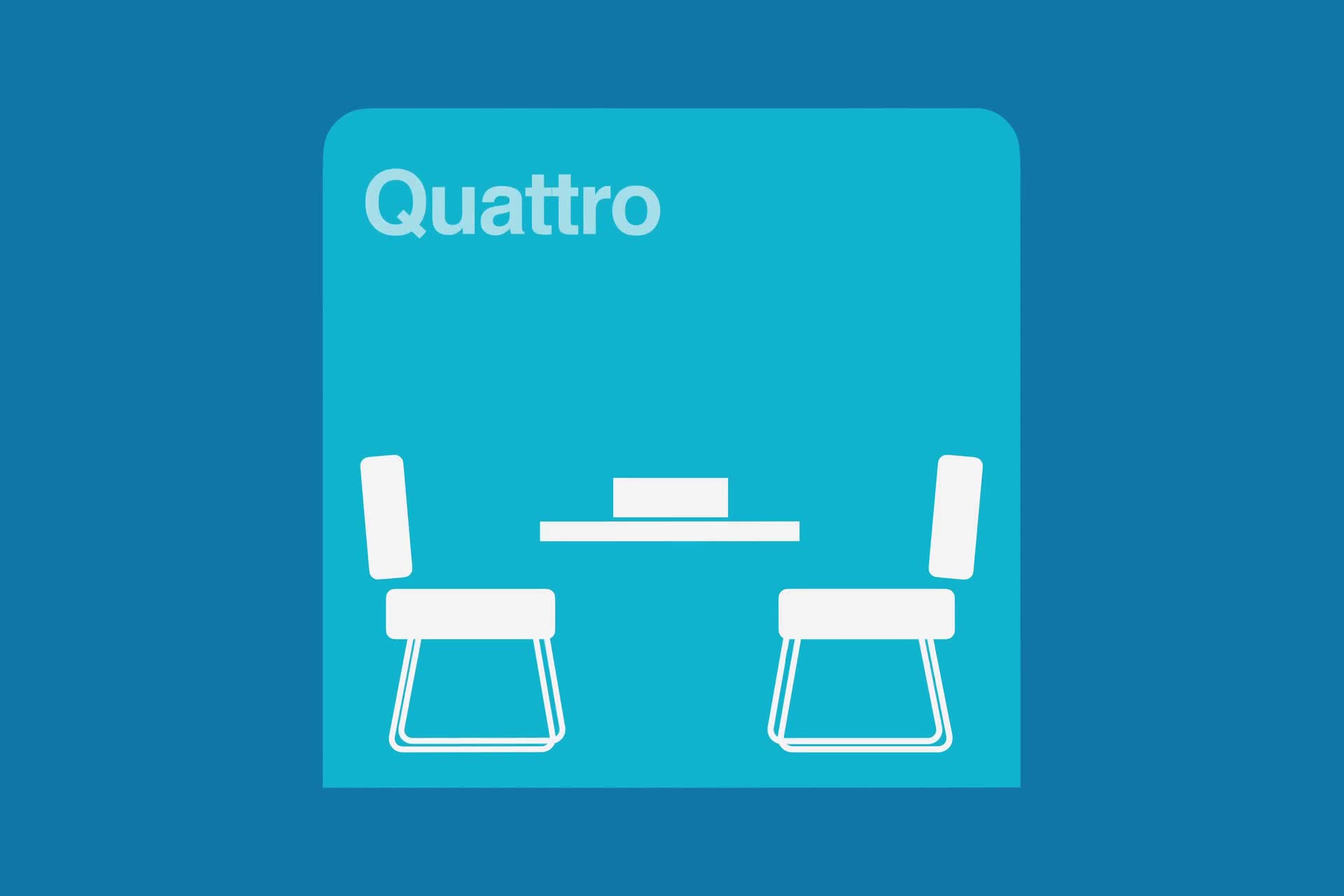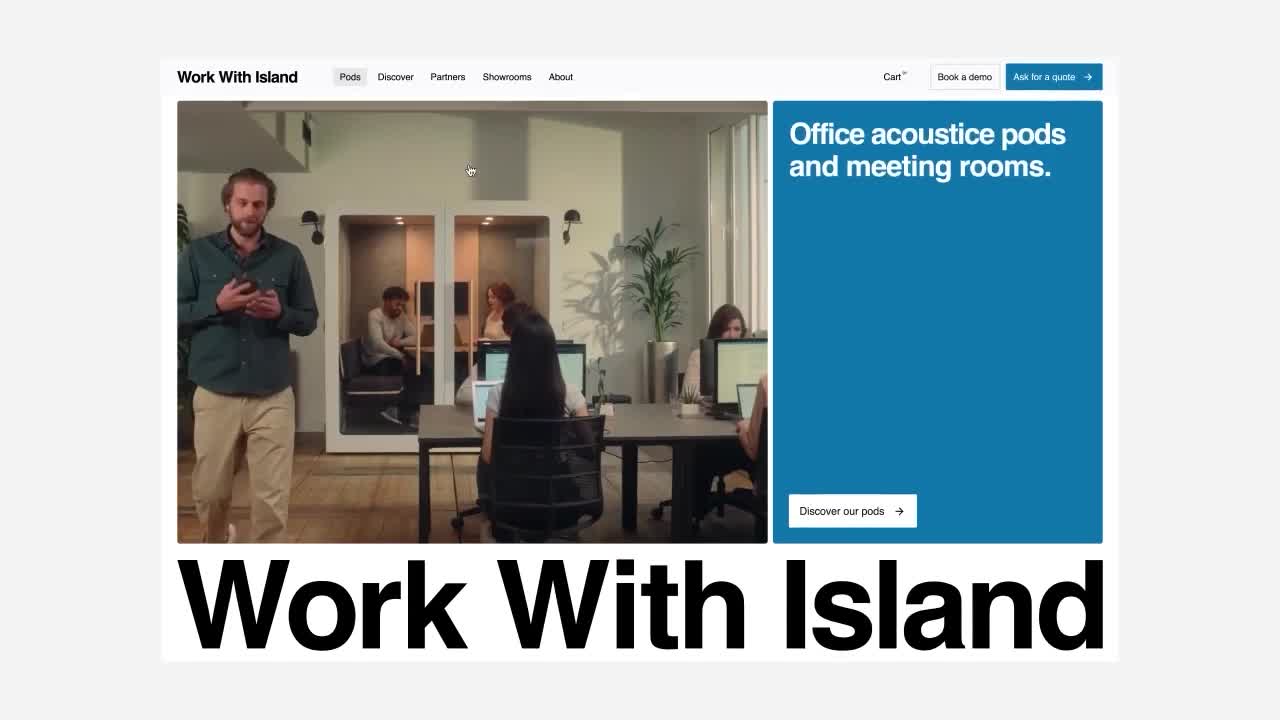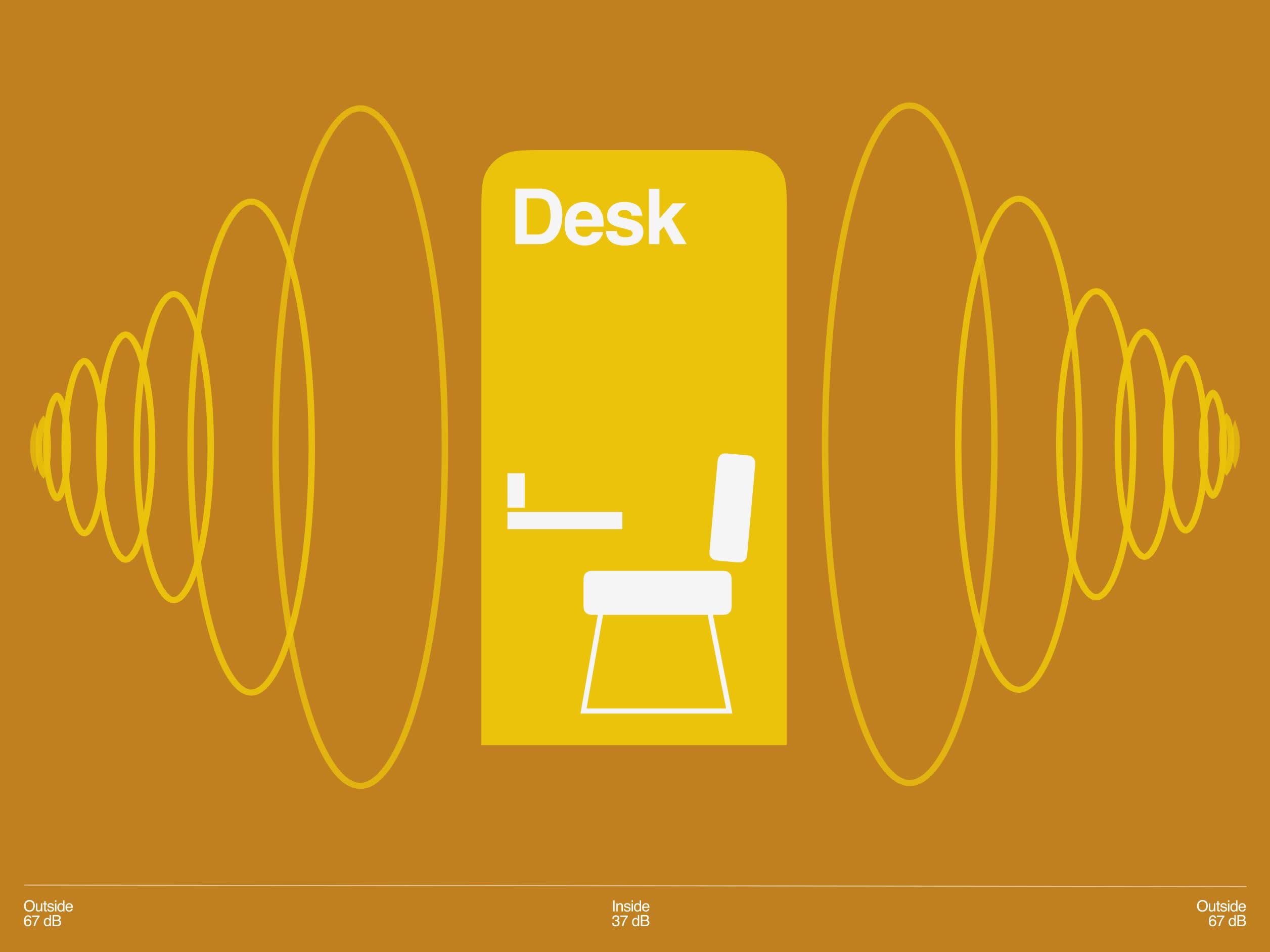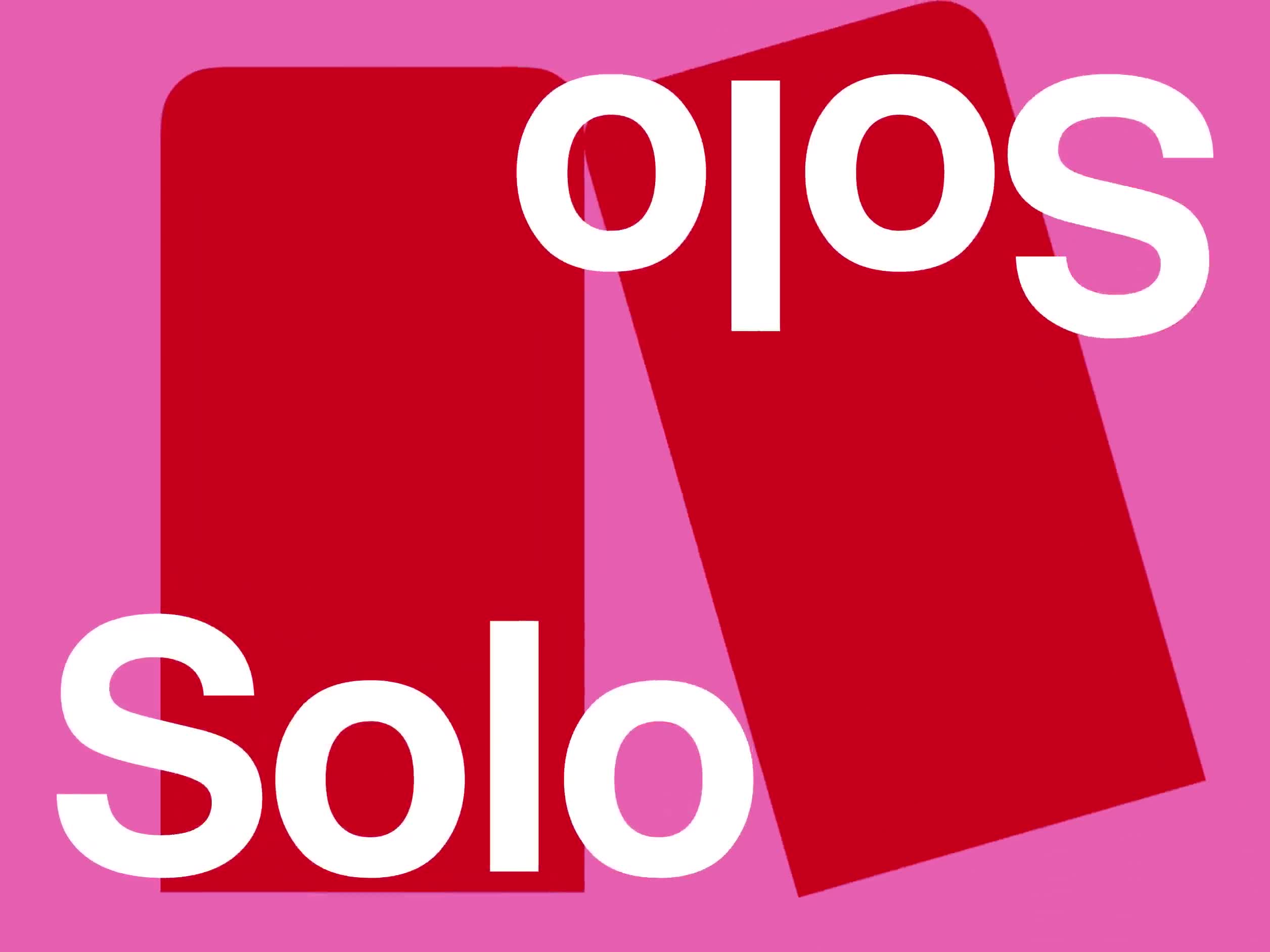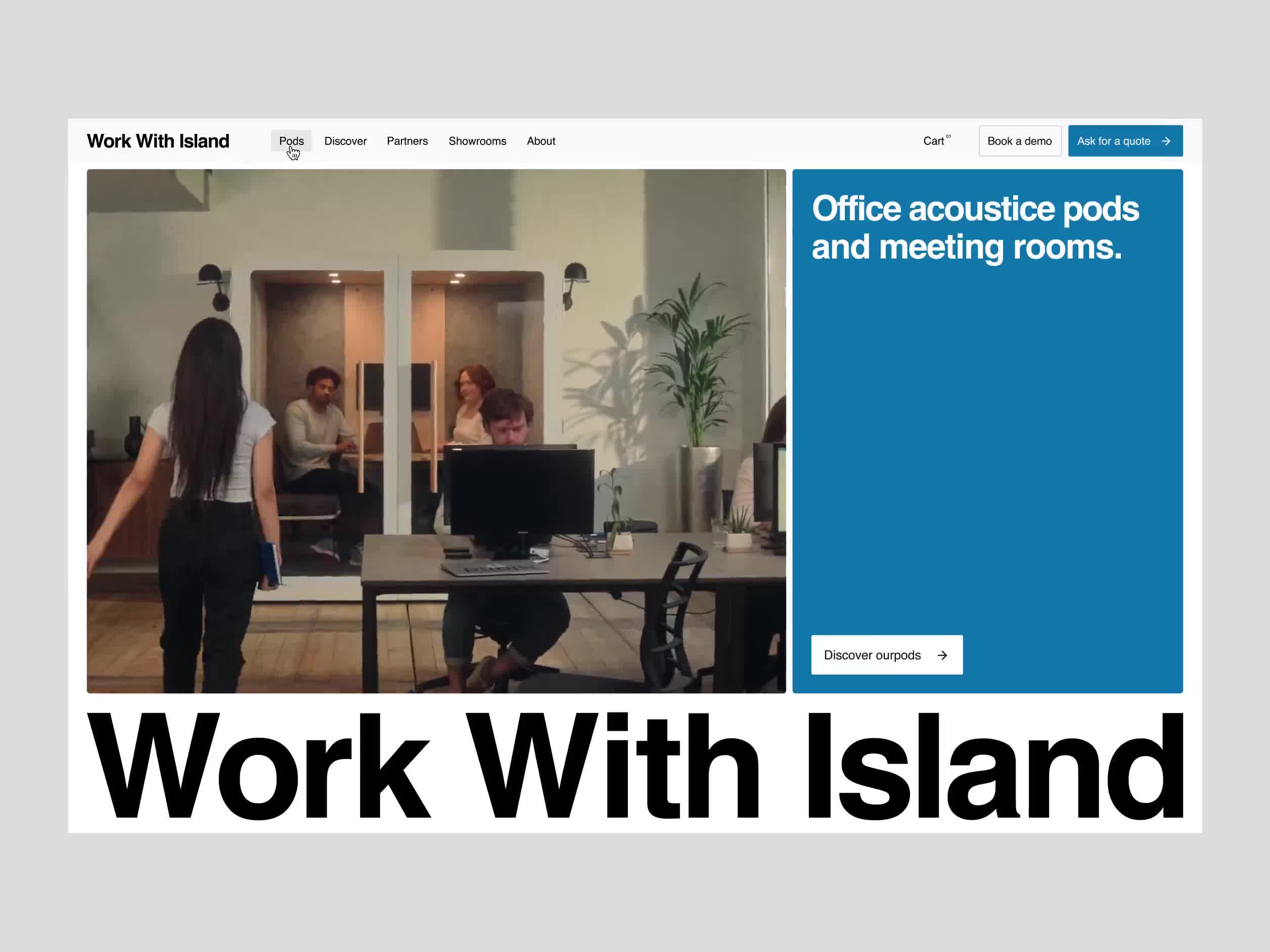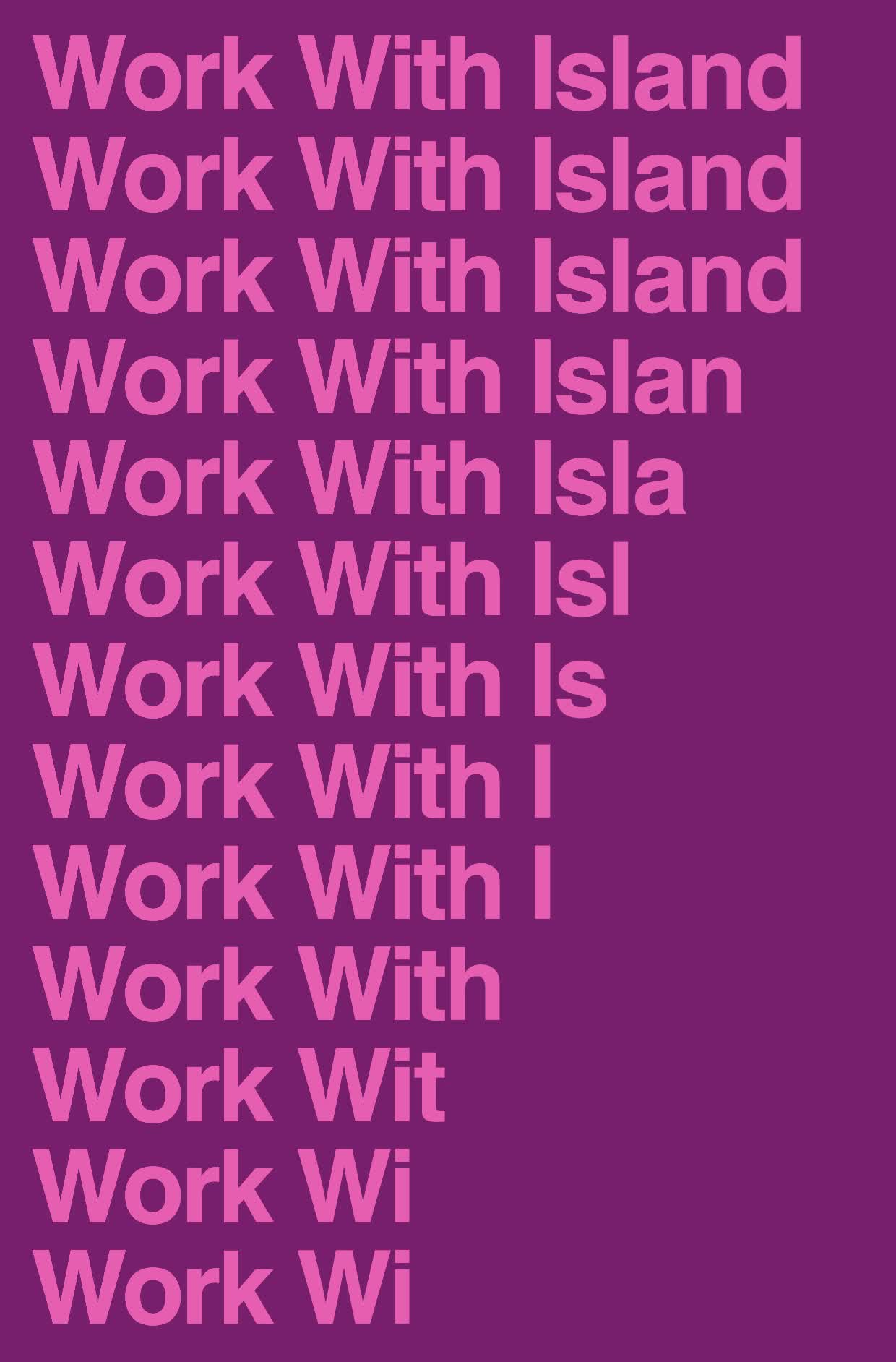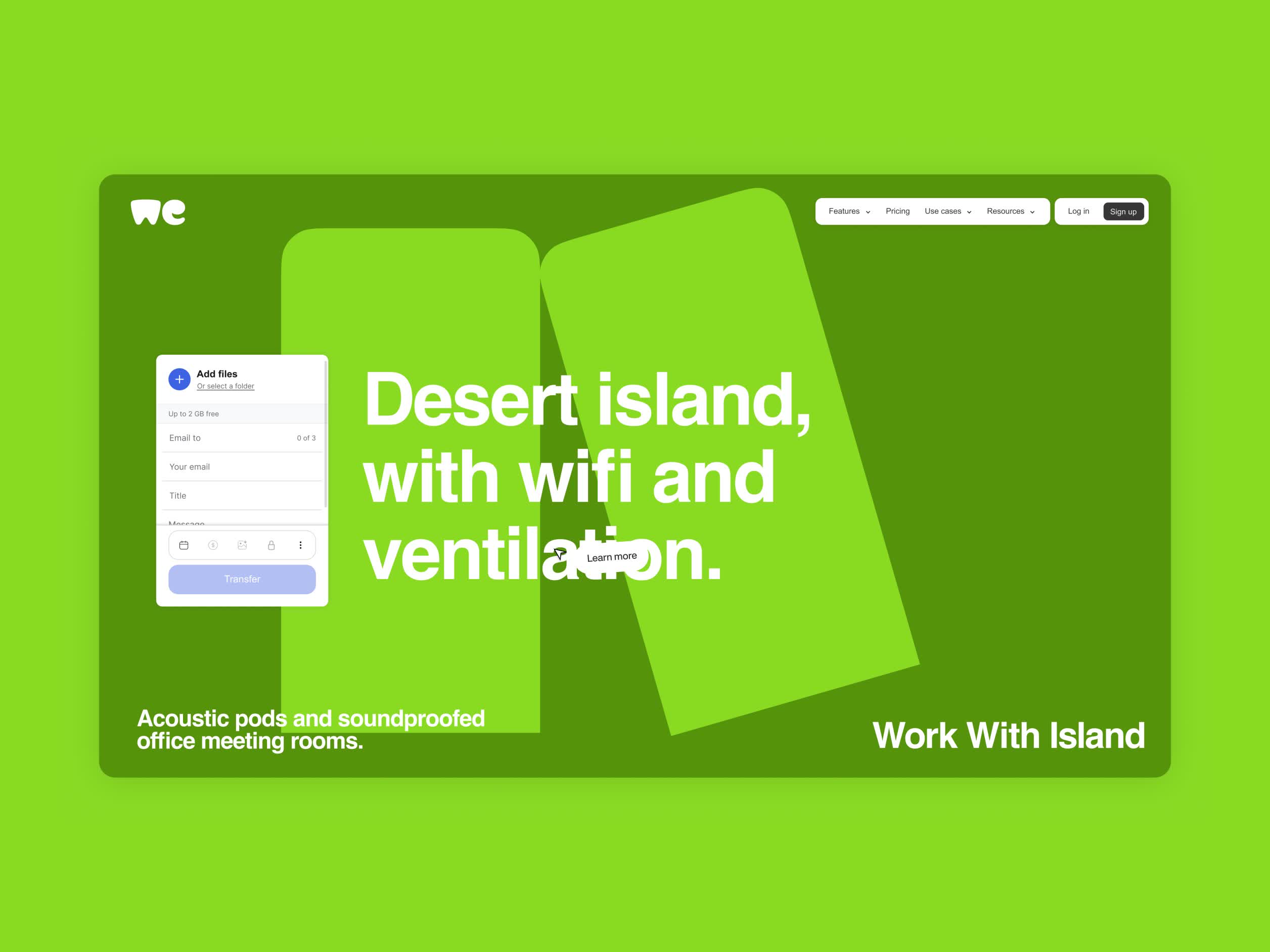
Work With Island
Acoustic pod company uses furniture positioning instead of tech startup vibes. Modular graphic system comes directly from product forms, Helvetica keeps it functional. Avoids generic tech-bro aesthetics by staying true to what the product actually is.